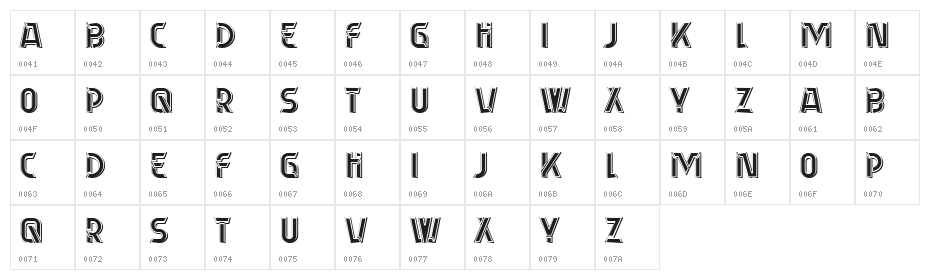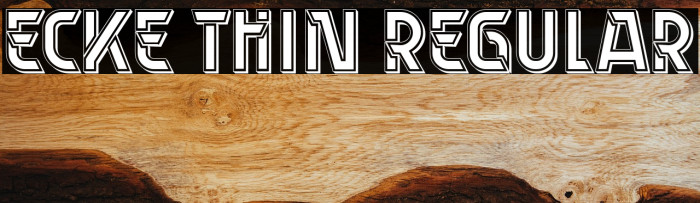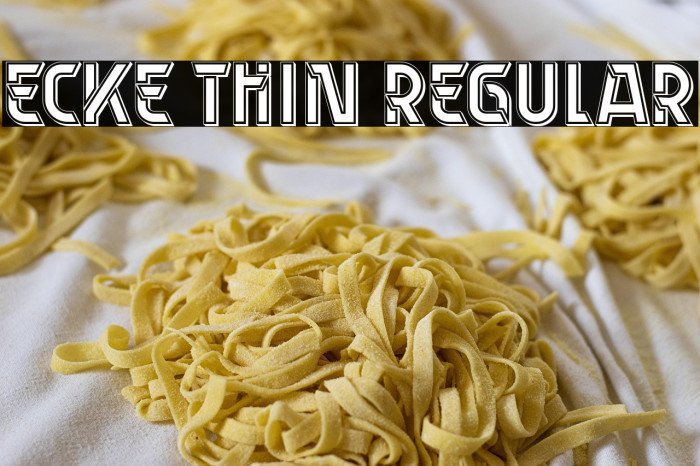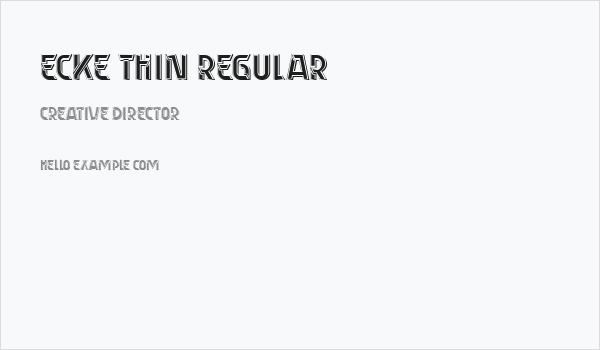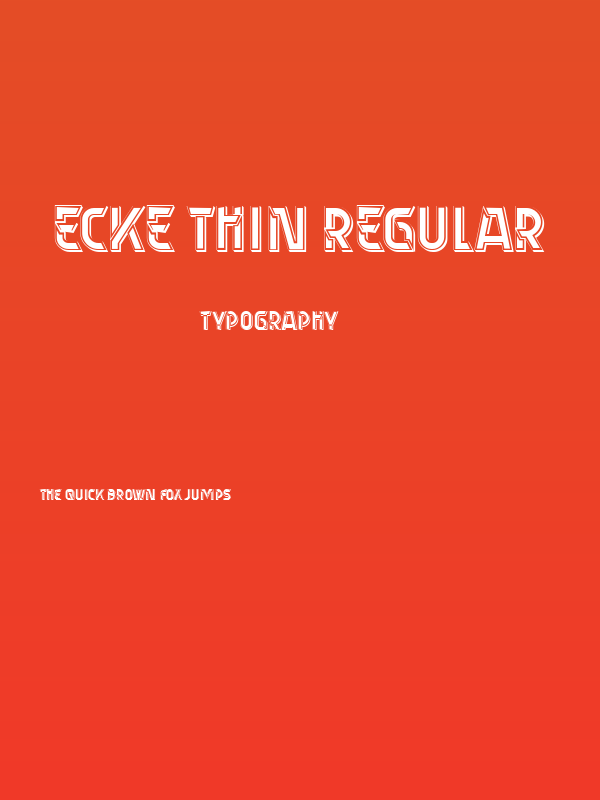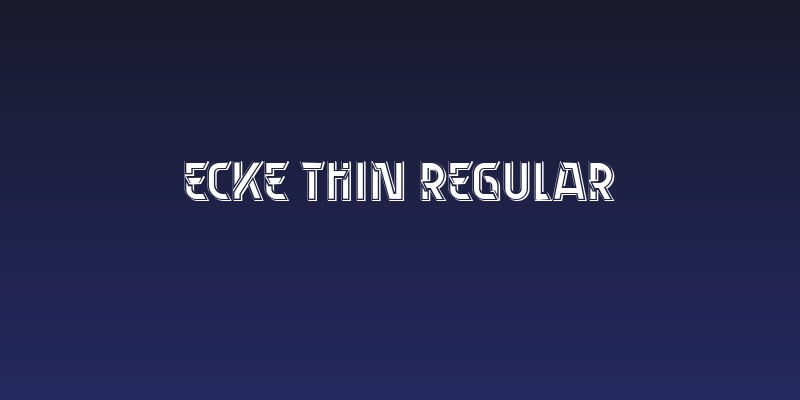
Ecke Thin Regular Font
Ecke Thin Regular Description
This font features a bold, geometric design with a three-dimensional effect created by the use of thick outlines and inner lines. The characters are uppercase only, with a futuristic and industrial aesthetic. The angular shapes and sharp edges give it a distinctive, modern look. The consistent thickness of the strokes and the uniform spacing between characters contribute to its structured appearance. This font is particularly striking due to its layered effect, which adds depth and visual interest, making it suitable for attention-grabbing headlines and titles.
Proposed ProjectsIdeal for use in posters, logos, branding, and any project requiring a modern, industrial feel.